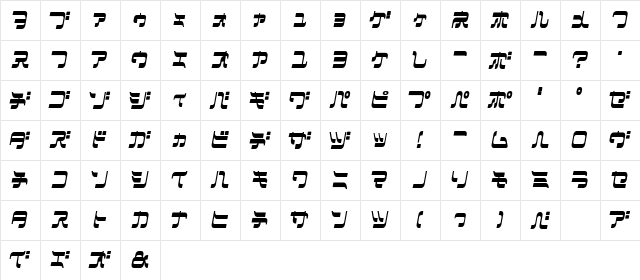
Maniac2KT Regular
Design Context for Maniac2KT Typeface
Maniac2KT is a composed and adaptable typeface that performs quietly and consistently across a wide range of design contexts.